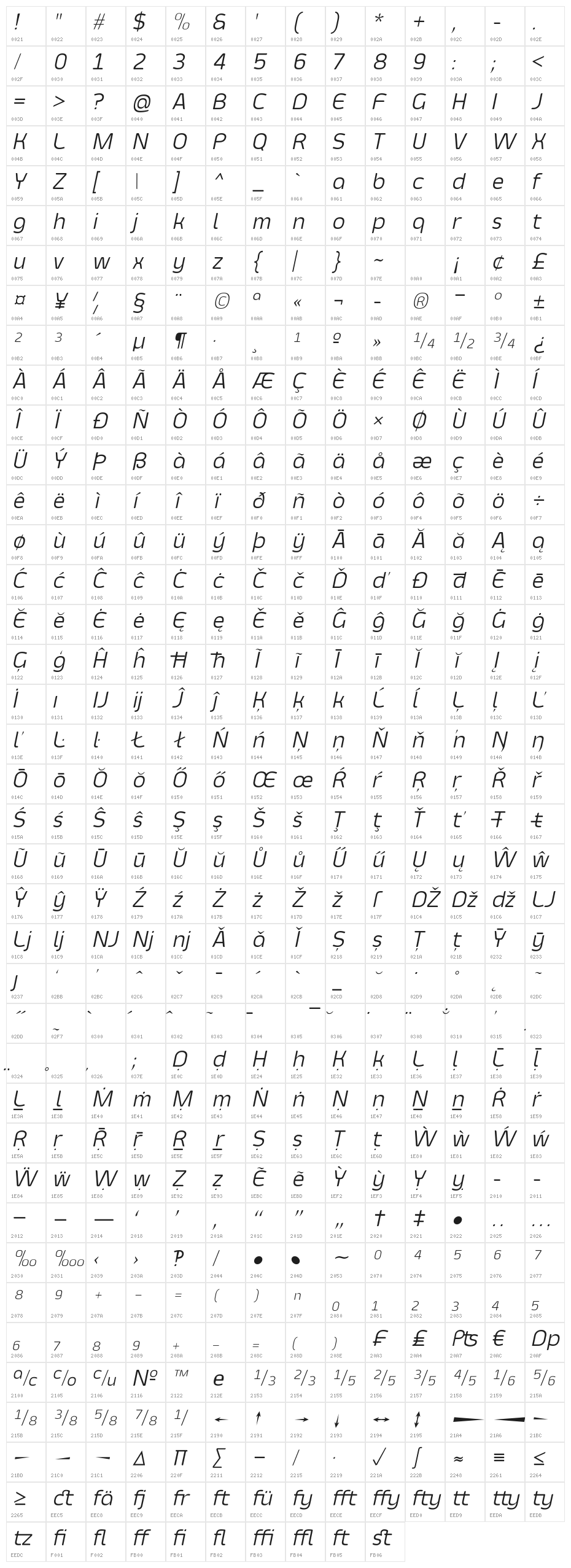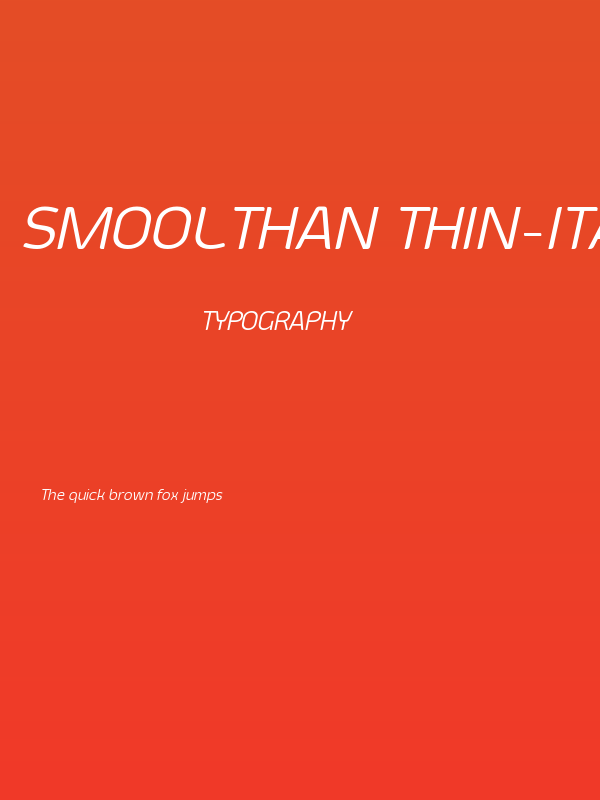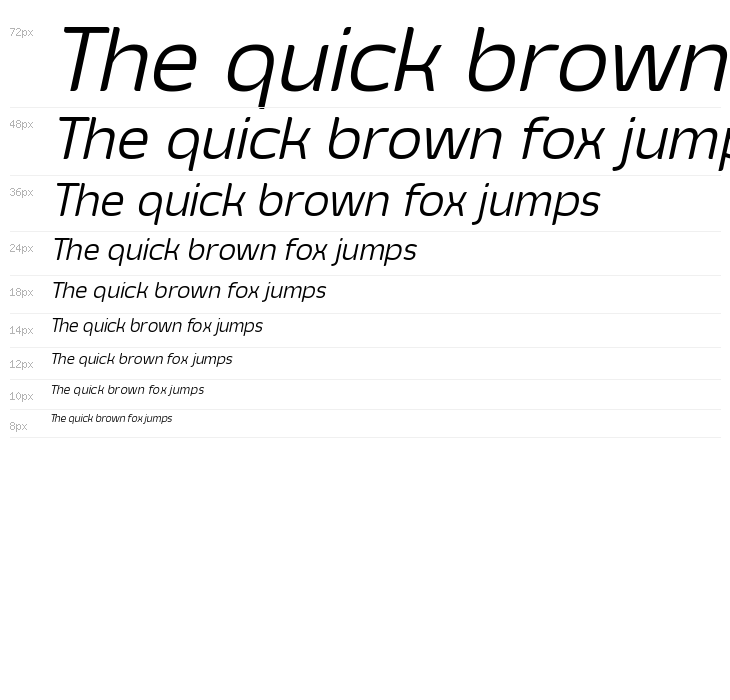
Smoolthan Thin-Italic Font
Smoolthan Thin-Italic Description
This font features a sleek and modern design with a thin, italicized style. The characters are elegantly slanted, providing a sense of motion and fluidity. The strokes are consistently thin, contributing to a light and airy appearance. The font maintains a clean and minimalist aesthetic, making it suitable for contemporary design projects. The uppercase and lowercase letters are well-proportioned, and the numerals are clear and easy to read. Special characters are included, offering versatility for various applications.